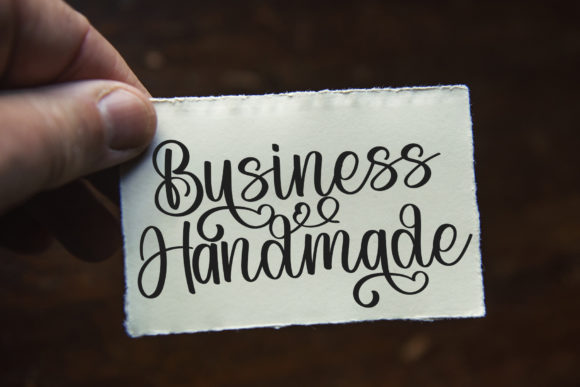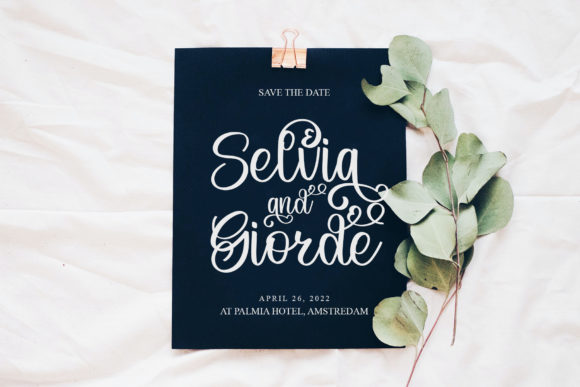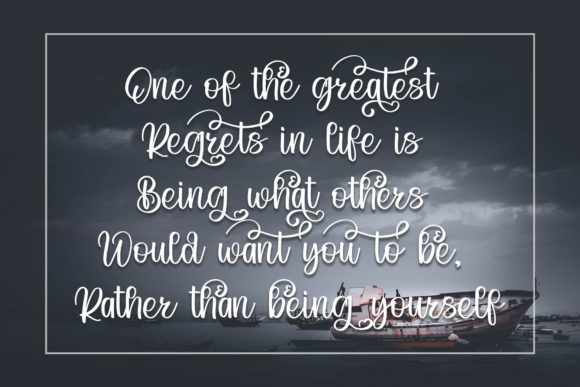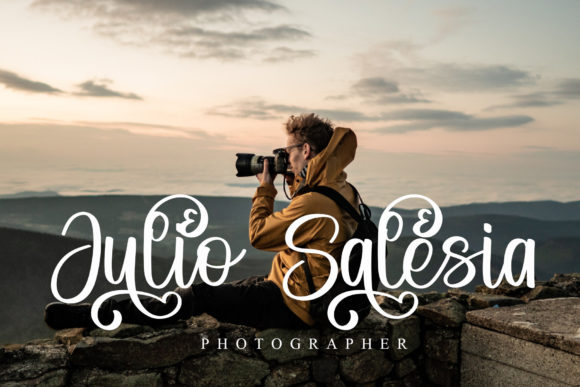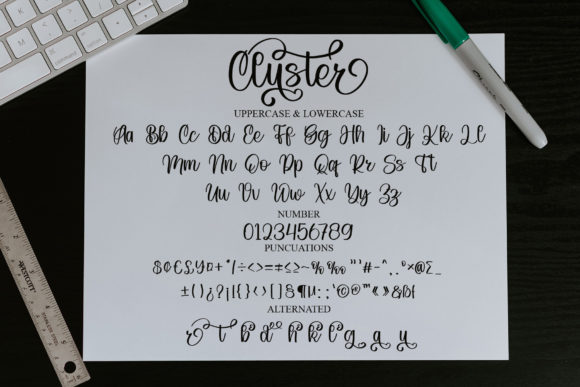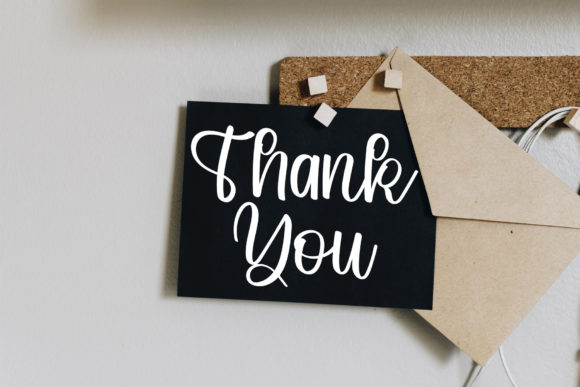
Cluster Font
About Cluster Font
Cluster is a lovely and timeless handwritten font that stands out as the best choice for creating eye-catching logos, branding, and quotes. Each letter in Cluster possesses a unique and beautiful touch, imparting a distinct charm to your design and bringing it to life.
At its core, Cluster is designed with a thoughtful touch, offering a timeless aesthetic that transcends trends. Its handwritten style adds a personal and authentic feel to your text, making it an ideal font for projects that require a touch of warmth and character.
The uniqueness of each letter in Cluster contributes to the overall beauty of the font. This diversity ensures that your design stands out with a captivating and individualized look. Whether used for logos, branding, or quotes, Cluster brings a sense of charm and timelessness that resonates with a wide range of design applications.
Cluster is particularly well-suited for projects that demand an eye-catching appeal. The combination of its lovely and timeless design makes it versatile for creating visual elements that leave a lasting impression, ensuring that your logos, branding, and quotes stand out with a touch of elegance.
In summary, Cluster is more than just a font; it’s a lovely and timeless tool that enhances your designs with a unique handwritten touch. Perfect for creating eye-catching logos, memorable branding, and impactful quotes, Cluster brings a sense of charm and individuality to your projects. Incorporate this font to infuse your designs with a timeless elegance that captivates and resonates with your audience.